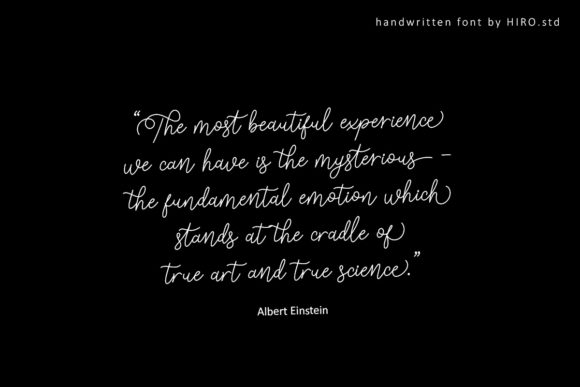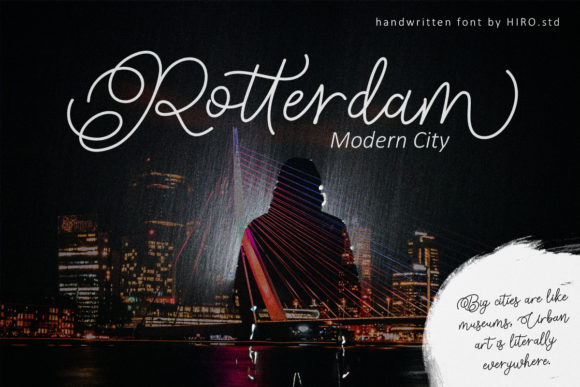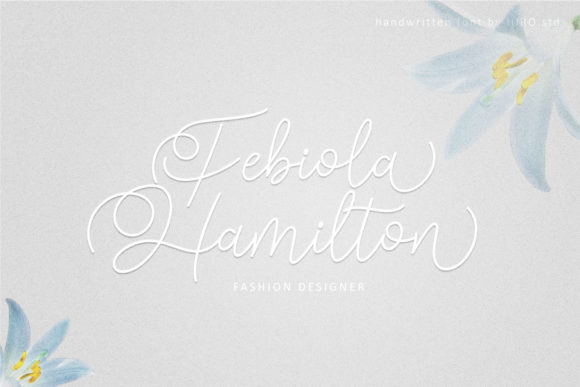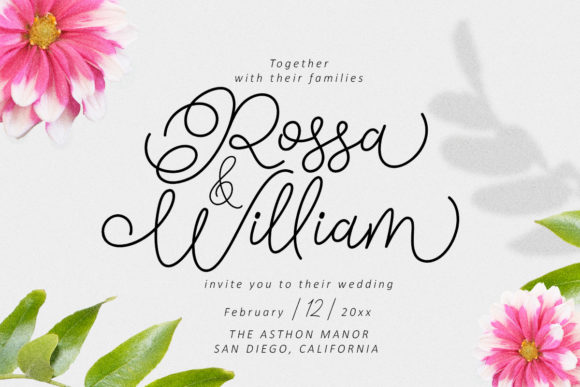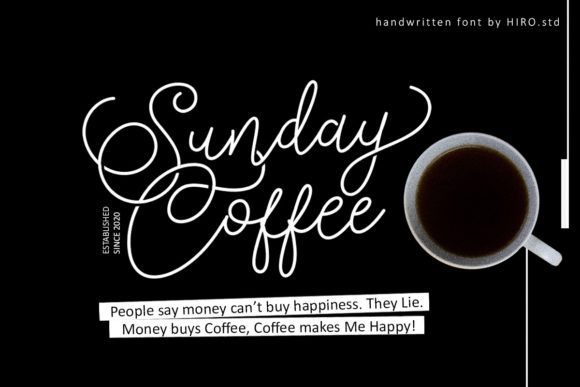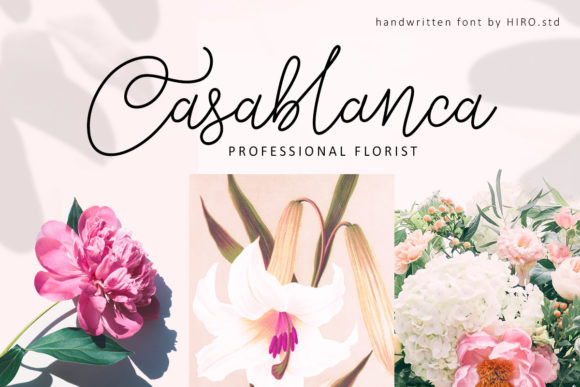
Introducing Feels So Good Font: Elevate Your Designs with Elegance
Are you on the hunt for a font that can add a touch of sophistication and whimsy to your designs? Look no further than Feels So Good Font. This delicate, elegant, and flowing handwritten font is perfect for designers and crafters looking to elevate their creative projects. With its beautiful and well-balanced characters, Feels So Good Font is versatile enough to match a wide pool of designs, making it an excellent addition to your font collection.
The Characteristics of Feels So Good Font
Feels So Good Font boasts a unique set of characteristics that set it apart from other fonts. Its delicate and elegant appearance makes it perfect for designs that require a touch of sophistication. The font’s flowing handwritten style gives it a whimsical feel, making it ideal for projects that require a personal touch. The well-balanced characters ensure that the font is easy to read, making it perfect for body text, headings, and titles.
Why Choose Feels So Good Font?
So, why should you choose Feels So Good Font for your designs? Here are just a few reasons:
- Versatility: Feels So Good Font is versatile enough to match a wide pool of designs. Whether you’re working on a wedding invitation, a fashion brand, or a children’s book, this font is sure to impress.
- Elegance: The font’s delicate and elegant appearance makes it perfect for designs that require a touch of sophistication.
- Whimsy: The flowing handwritten style gives Feels So Good Font a whimsical feel, making it ideal for projects that require a personal touch.
- Readability: The well-balanced characters ensure that the font is easy to read, making it perfect for body text, headings, and titles.
How to Use Feels So Good Font in Your Designs
Feels So Good Font is perfect for a wide range of design projects, including:
- Wedding Invitations: Add a touch of elegance to your wedding invitations with Feels So Good Font.
- Fashion Brands: Use Feels So Good Font to create stunning fashion branding, including logos, packaging, and advertising materials.
- Children’s Books: The whimsical feel of Feels So Good Font makes it perfect for children’s books, adding a touch of magic to your storytelling.
- Stationery: Use Feels So Good Font to create beautiful stationery, including greeting cards, thank-you cards, and journals.
Tips for Getting the Most Out of Feels So Good Font
Here are a few tips for getting the most out of Feels So Good Font:
- Experiment with Pairings: Feels So Good Font pairs well with a wide range of fonts. Experiment with different pairings to find the perfect combination for your design.
- Play with Size and Color: Don’t be afraid to play with the size and color of Feels So Good Font to add visual interest to your design.
- Use it for Headings and Titles: Feels So Good Font is perfect for headings and titles. Use it to add a touch of elegance and whimsy to your design.
In conclusion, Feels So Good Font is a delicate, elegant, and flowing handwritten font that is perfect for designers and crafters looking to elevate their creative projects. With its beautiful and well-balanced characters, Feels So Good Font is versatile enough to match a wide pool of designs. Whether you’re working on a wedding invitation, a fashion brand, or a children’s book, Feels So Good Font is sure to impress. So why wait? Add Feels So Good Font to your font collection today and notice how it makes your designs come alive!